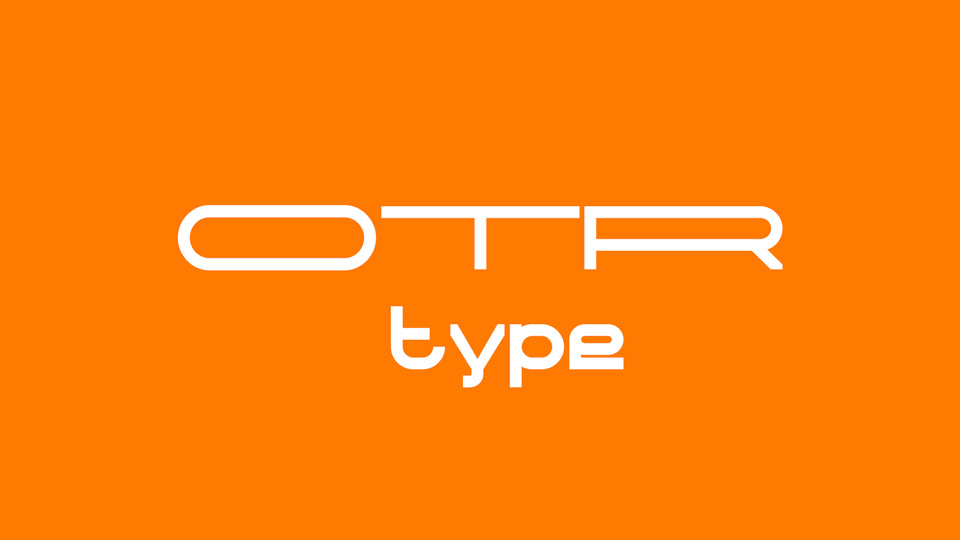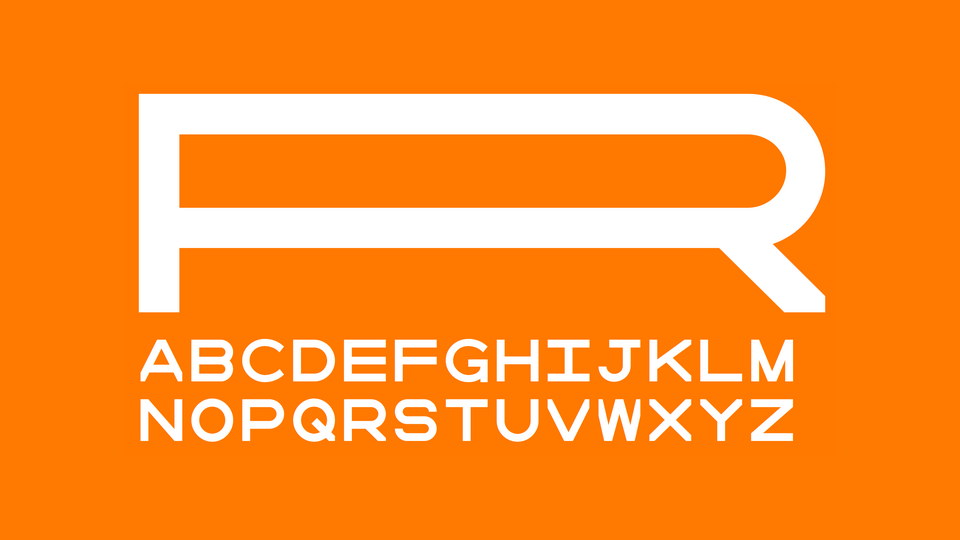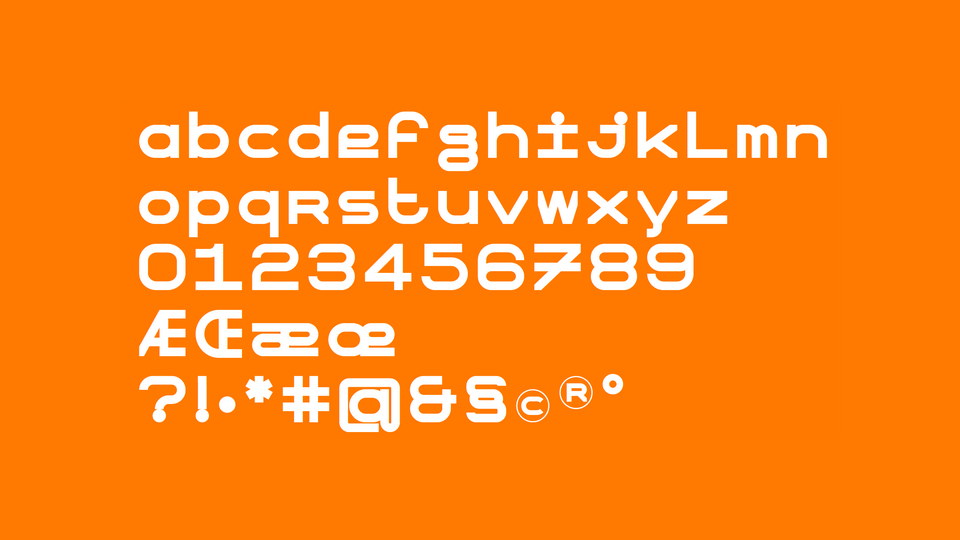
OTR Type Font
OTR Type is a geometric grotesque typeface with modern proportions and straight-edge terminals. It featured by two styles – Wide and Regular. The font brings a strong and unique look that you can use for many purposes.
Designed by: Bastien Tessanne